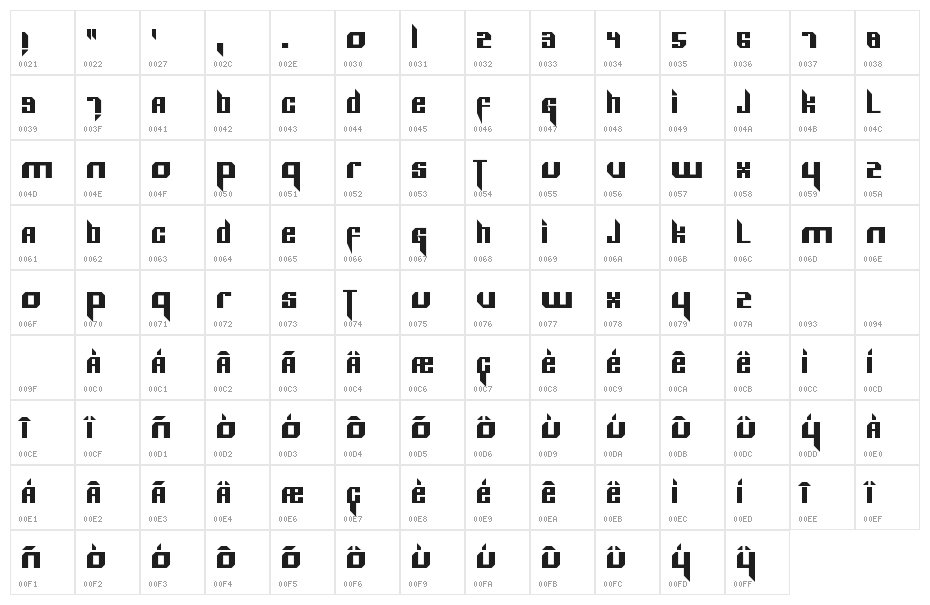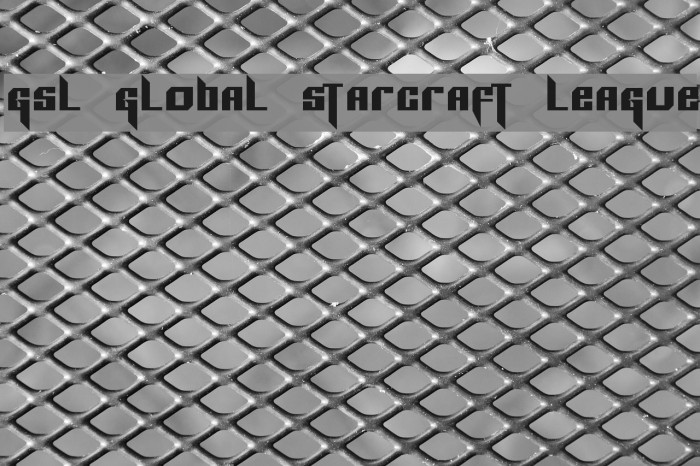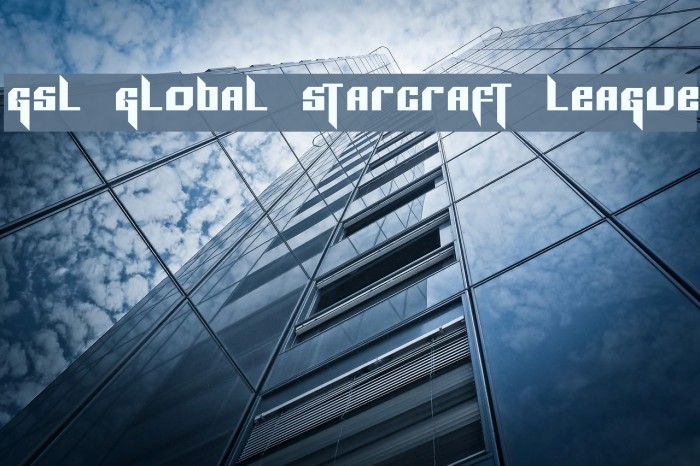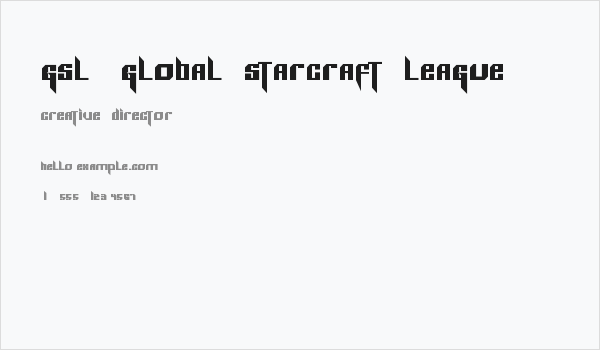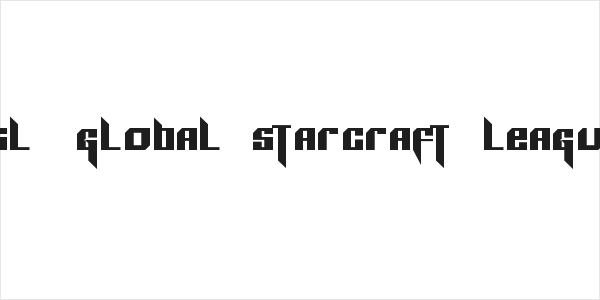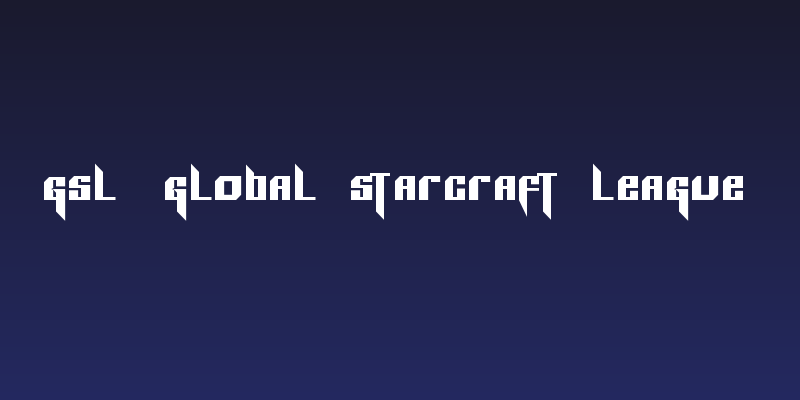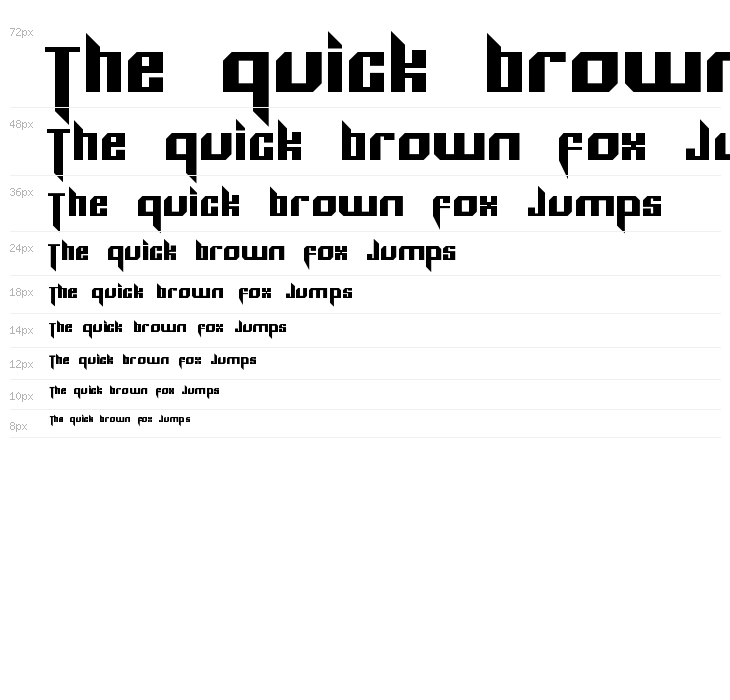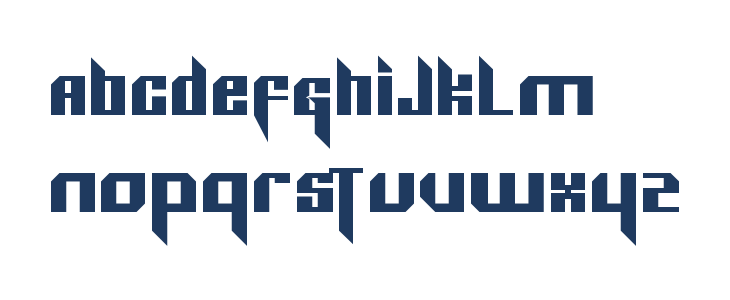
GSL [Global StarCraft League] Font
This font features a bold and angular design, characterized by sharp edges and geometric shapes. The letters are constructed with a futuristic and aggressive style, reminiscent of sci-fi and gaming aesthetics. The uppercase and lowercase letters maintain a consistent height, contributing to a uniform appearance. The numbers and special characters follow the same design principles, ensuring cohesion across all glyphs. The overall look is striking and modern, making it suitable for projects that require a strong visual impact.
| Use Case | Logos, Headlines |
| Proposed Projects | Ideal for gaming logos, sci-fi movie posters, tech branding, and esports event materials. |